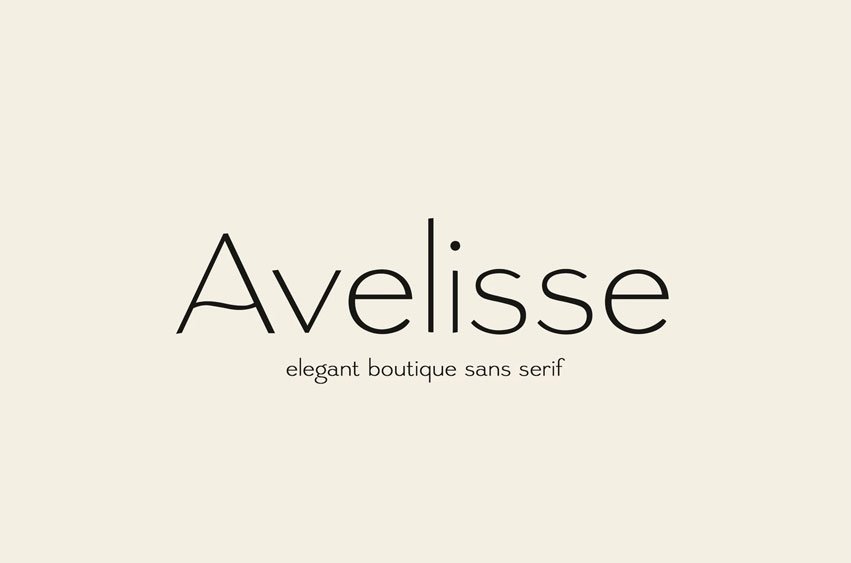
Avelisse Font
Avelisse Font is an elegant boutique sans serif font with thin lines, modern curves, and a refined fashion-inspired style for branding, logos, packaging, invitations, and editorial design.